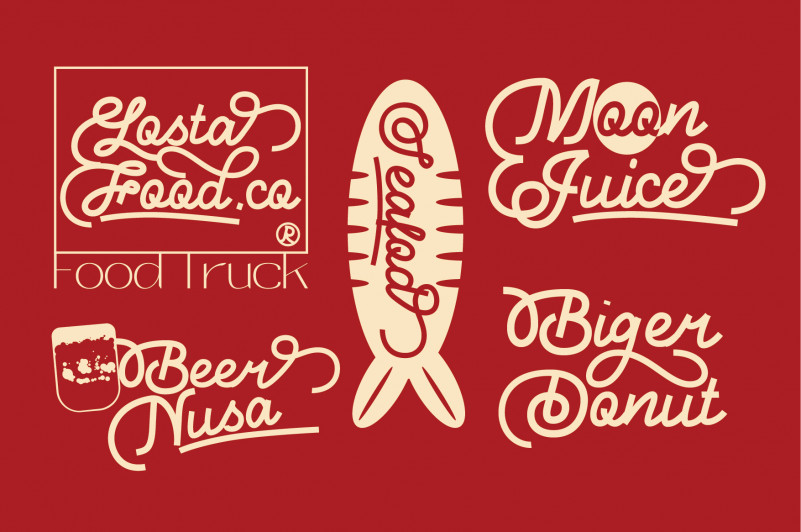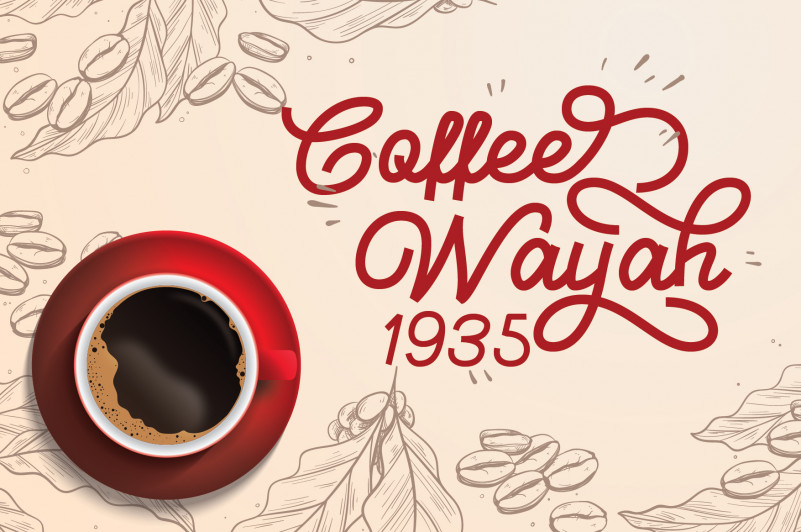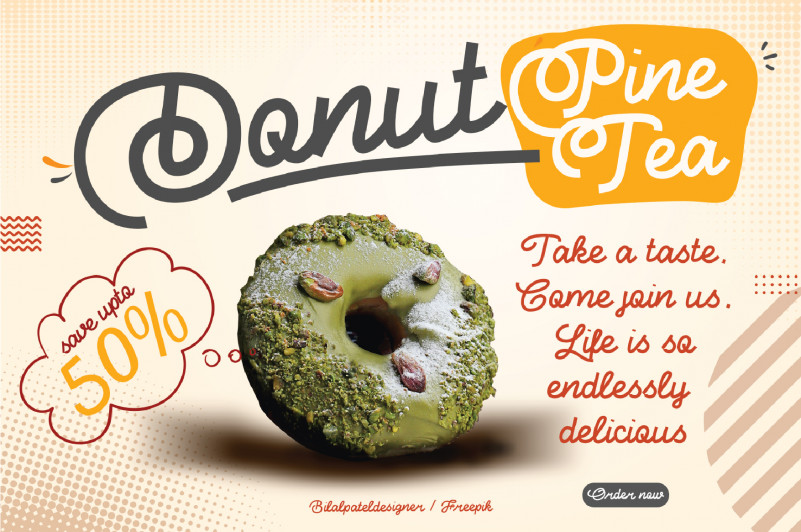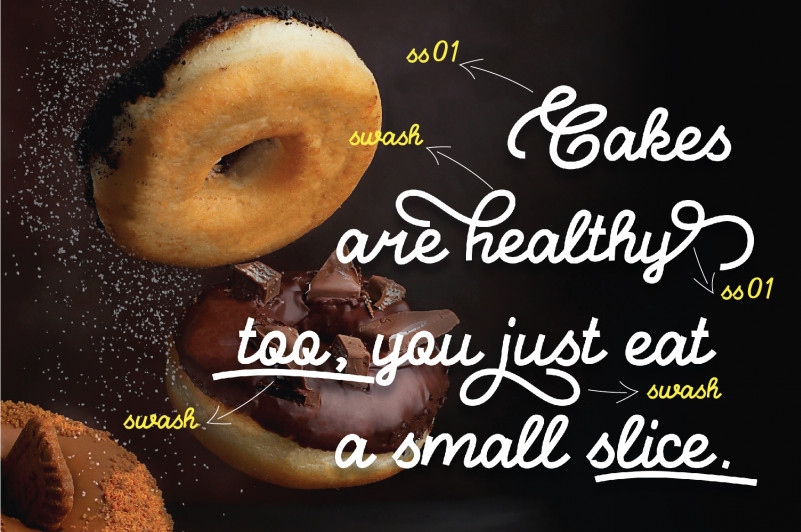
Daylosta Font
Daylosta Font – This font features a classic and elegant style, perfect for: The concept of font design for the food, drink and cake industry leads to an energetic and creative youth market processing the taste and color of food.